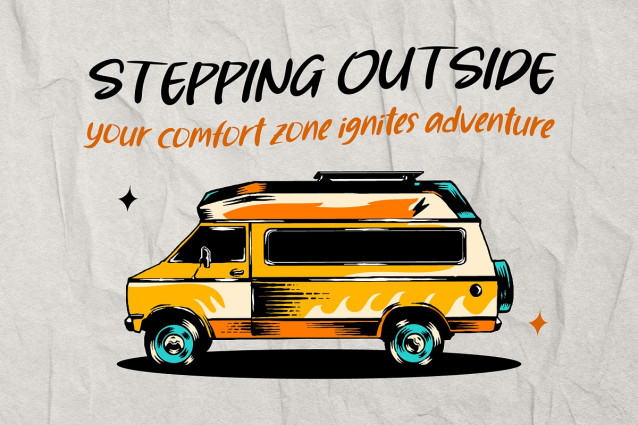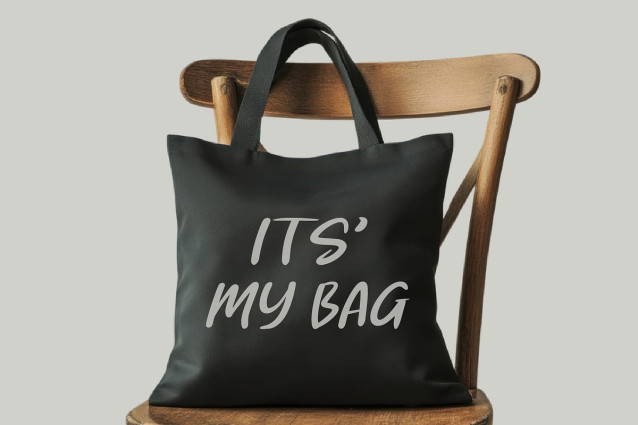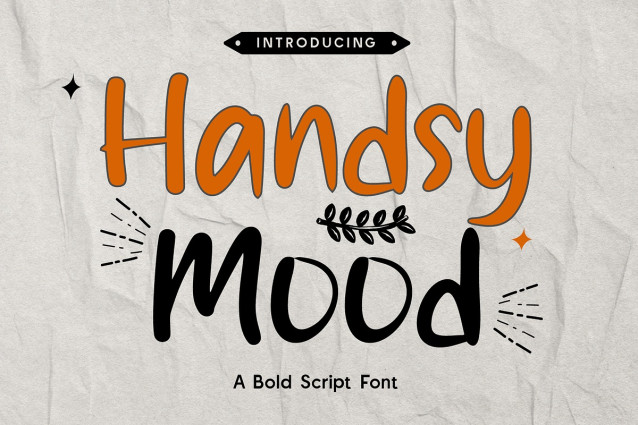
CF Handsy Mood Font
CF Handsy Mood Font is a bold script font full of personality and punch. Designed with hand-drawn energy and confident strokes, this typeface blends playful character with modern appeal. Its bold monoline structure and smooth curves make it perfect for branding, social media graphics, merchandise, posters, and editorial headlines.
Handsy Mood delivers readability with flair, offering a casual yet expressive script style that feels both spontaneous and structured. Ideal for designers seeking a handcrafted touch with visual impact, it works beautifully across both print and digital formats.